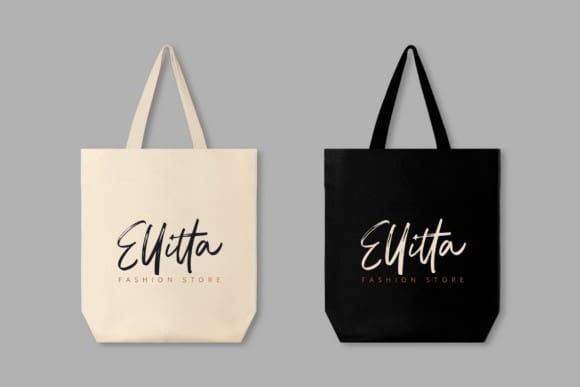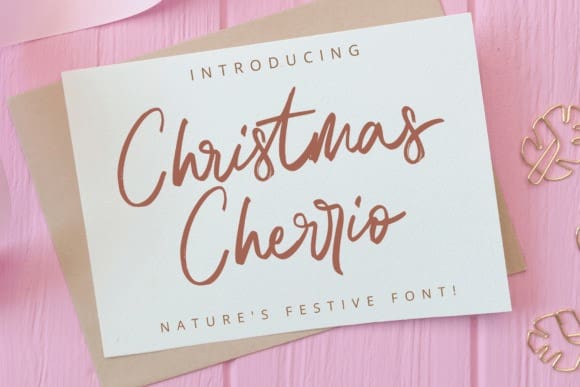
Christmas Cherrio Font
Christmas Cherrio Font a brush font flaunting a natural and earthy aesthetic. Skillfully handcrafted, its timeless appeal lends itself perfectly to any design necessity, particularly for holiday-themed creations. Explore the versatile nature of ChristmasCherrio for Christmas and New Year designs, adding a touch of organic beauty to every project. Discover the organic allure of Christmas Cherrio today.